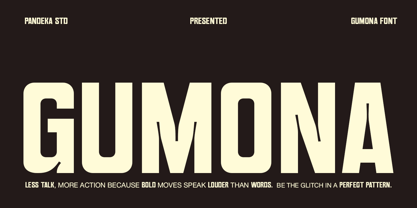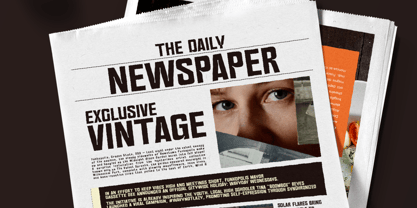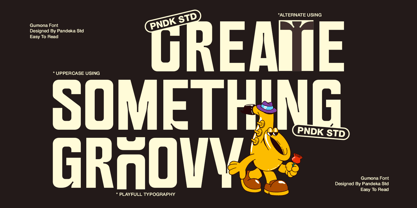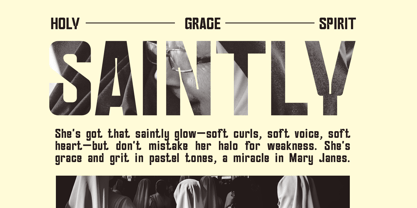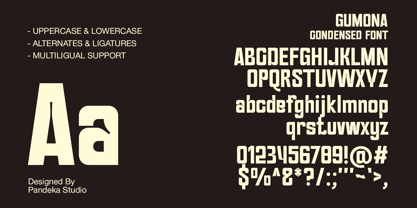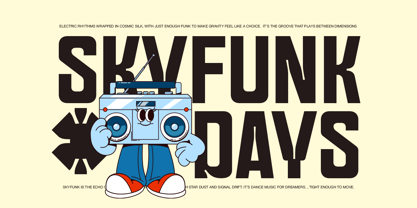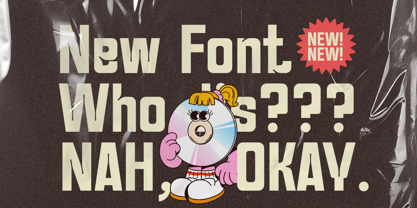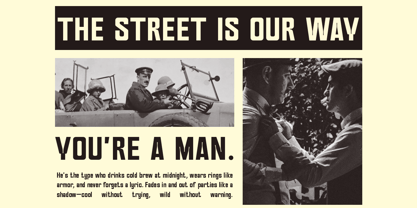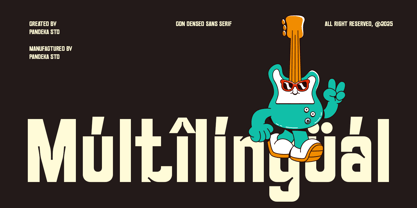
Gumona
by Pandeka Studio
The Gumona Font Family was designed by Sagara Nararya and published by Pandeka Studio. Gumona contains 1 styles. More about this family
Gumona is a bold, condensed display typeface designed to make a strong impression. With thick strokes, square corners, and tight letter spacing, it evokes the raw energy of urban culture, streetwear, and bold editorial layouts. Its sharp structure and powerful silhouette make it ideal for headlines, posters, sports branding, album covers, and magazine spreads.
Built for visual impact, Gumona thrives in high-contrast environments—whether it’s a gritty street ad or a sleek modern campaign. The font includes uppercase and lowercase, ligatures, and multilingual support to suit a wide range of expressive uses.
• 29+ Ligatures and alternates
Designers: Sagara Nararya
Foundry: Pandeka Studio